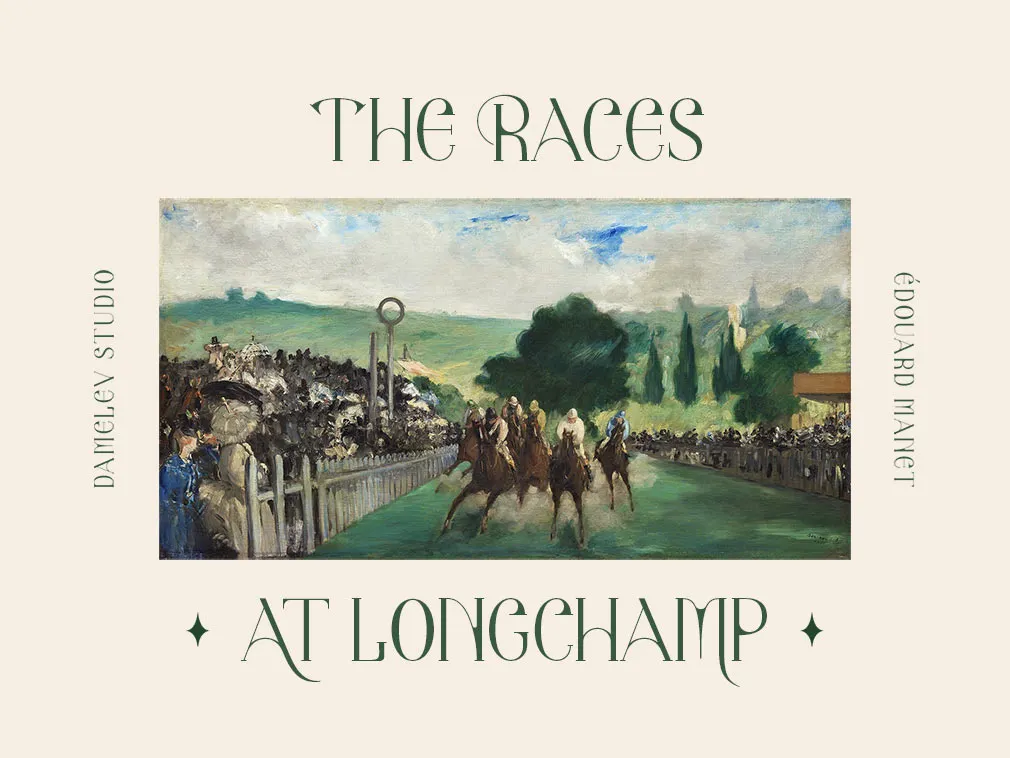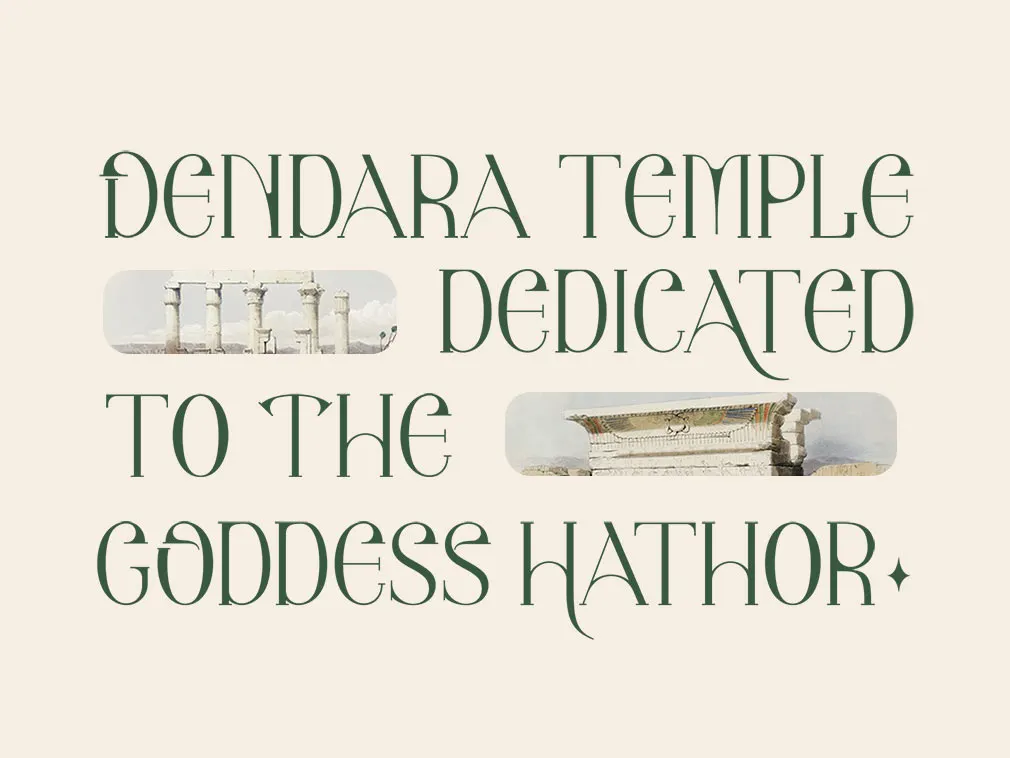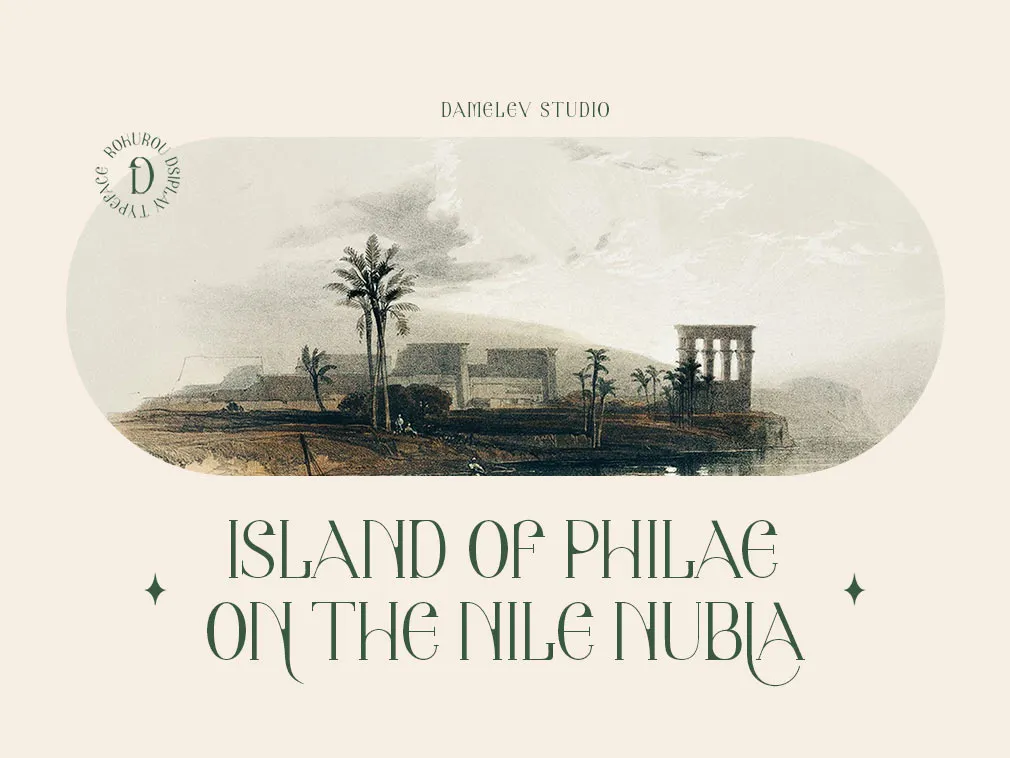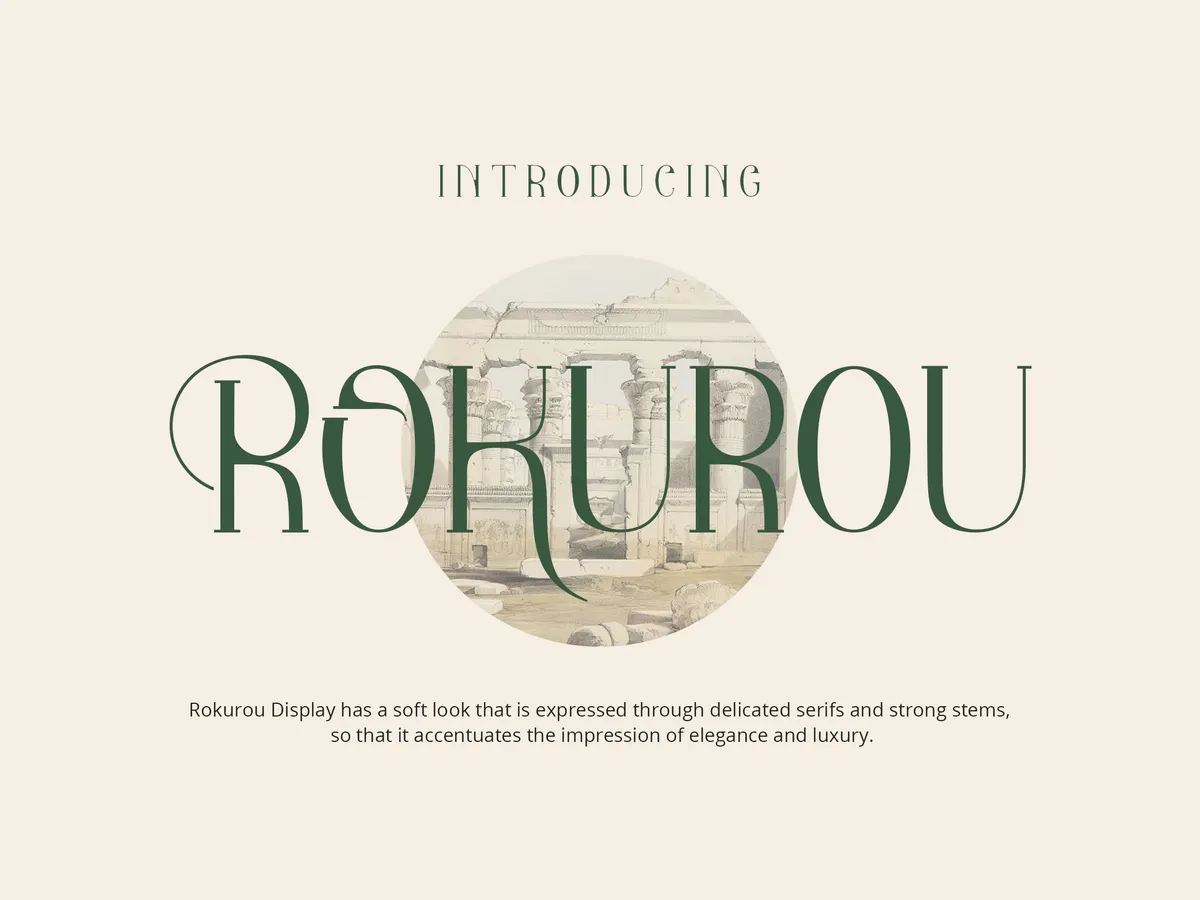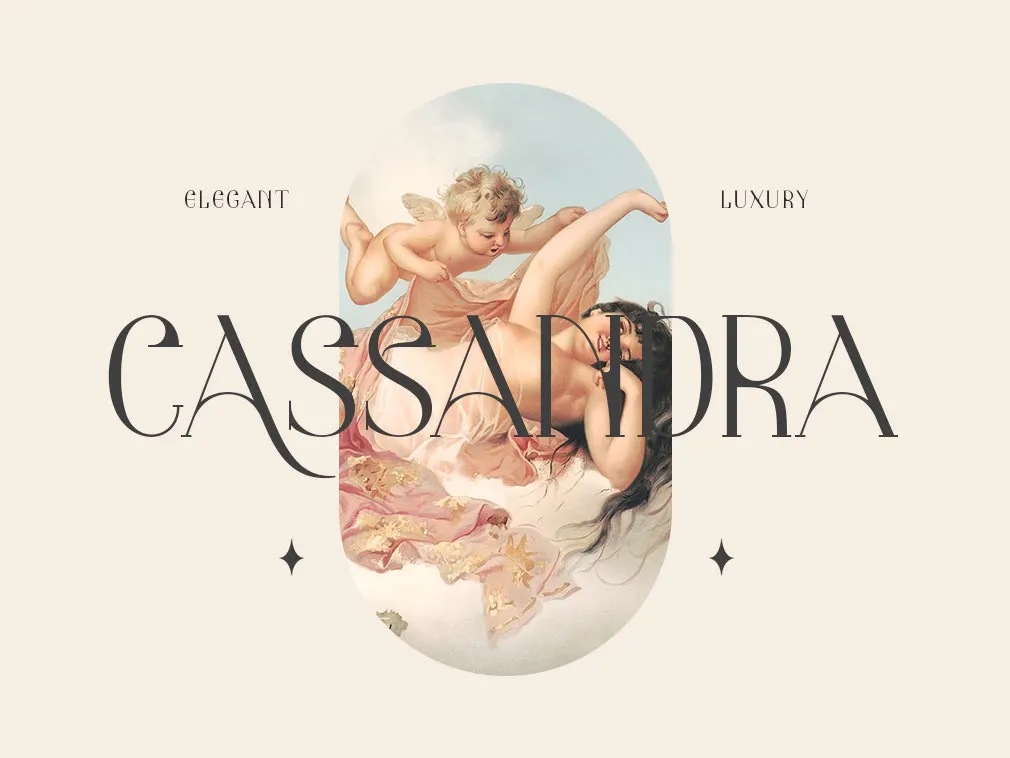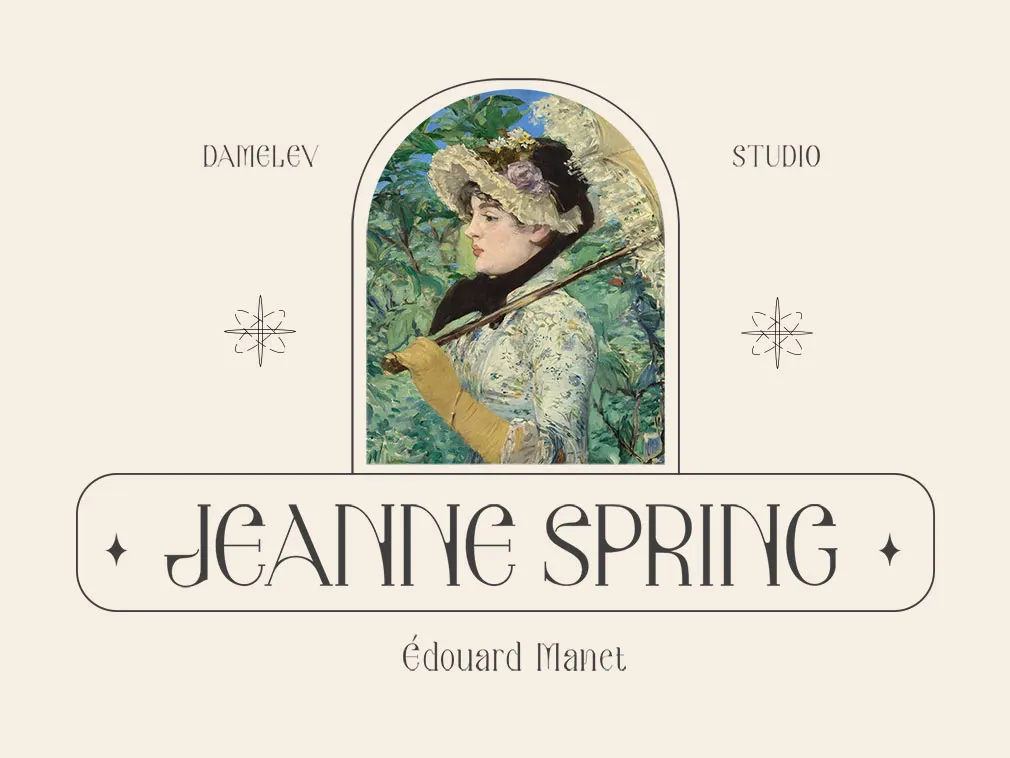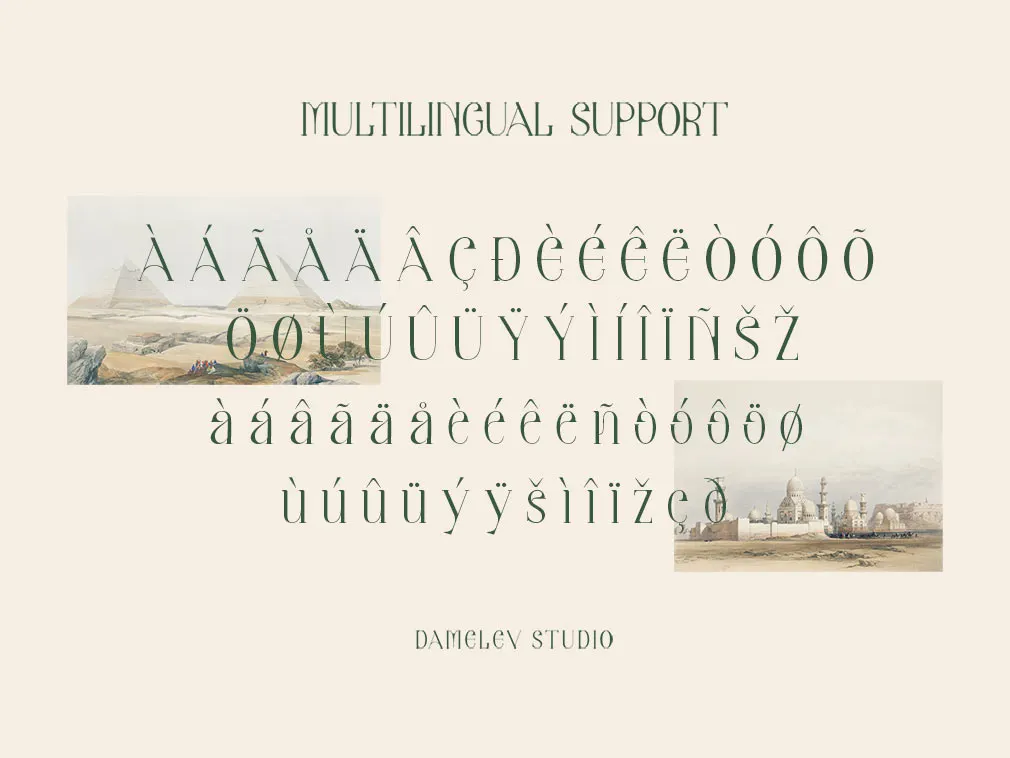
Rokurou Display Font
We love to see the experiments of mixing the classic fonts with some modern ones in order to see how they complement each other. Take a look at this display font, being a successful result of these creative trials!Rokurou Display has a soft look that is expressed through delicate serifs and strong stems so that it accentuates the impression of elegance and luxury. Rokurou Display has antique, classic "Roman" proportions. It can be used to set body texts and works well in titles and headlines too! You can access the OpenType features and multilingual support to have complete creative freedom!